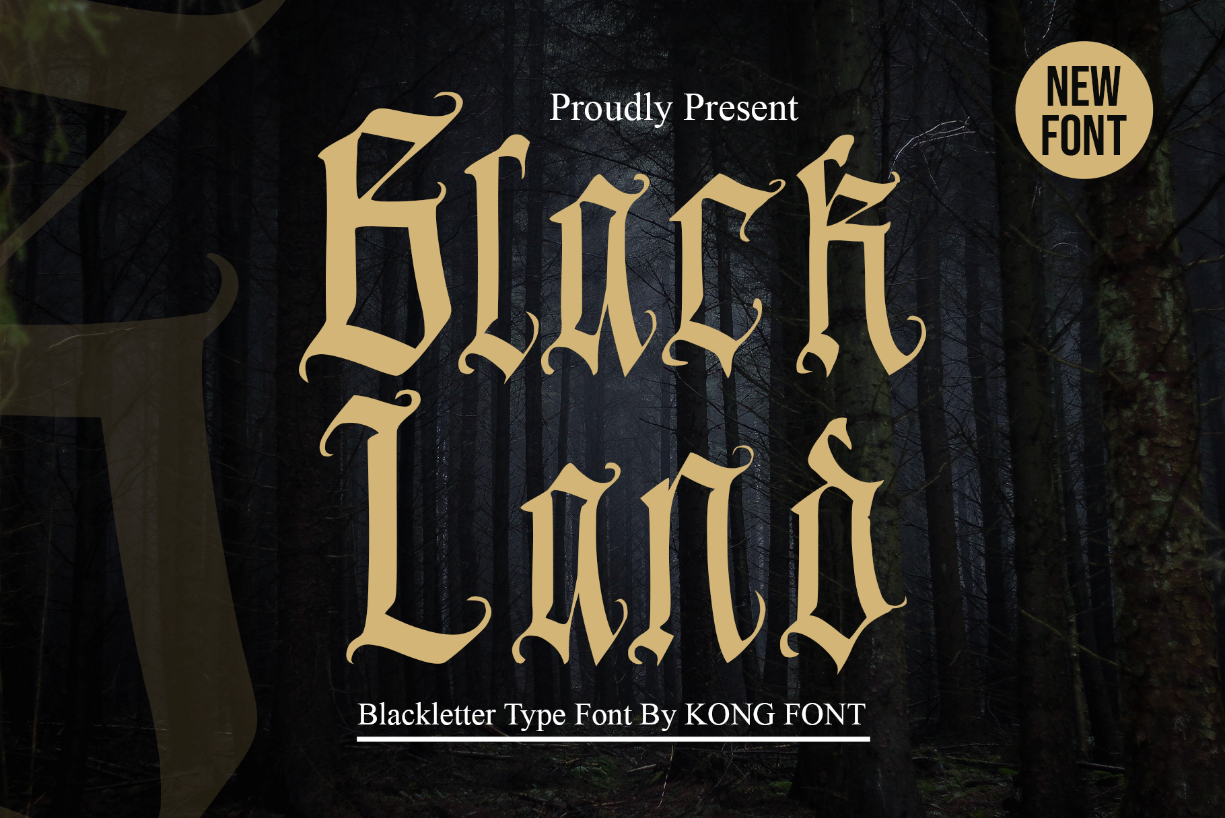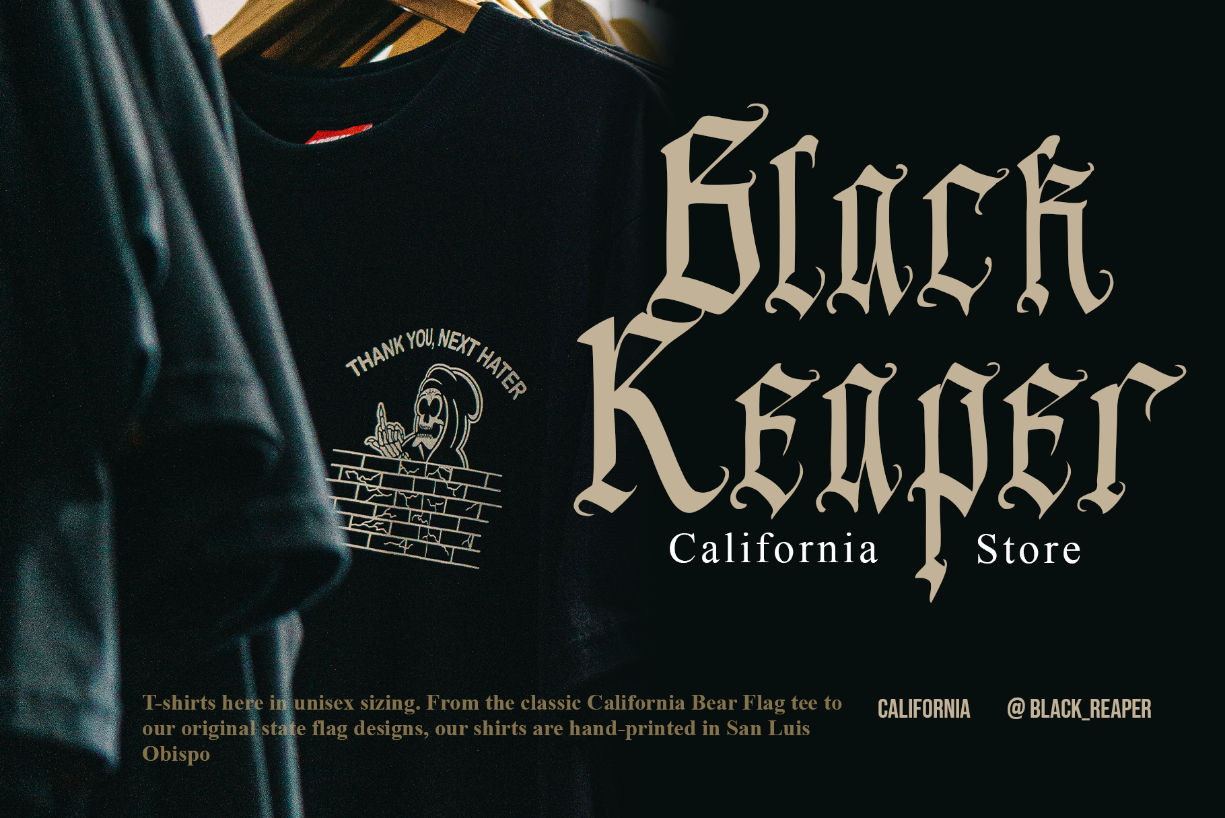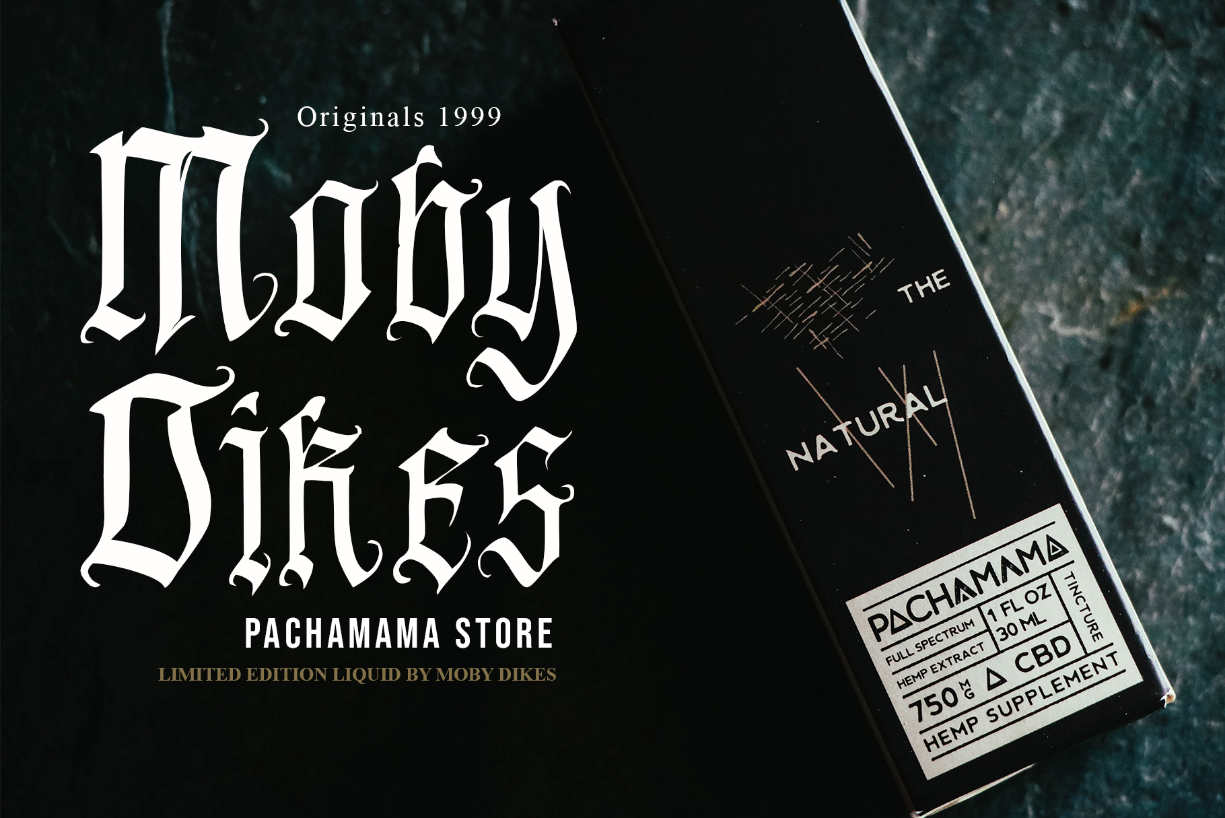
Black Land Font
About Black Land Font
Black Land is a classic and distinct blackletter font. It’s great for crafters and designers. This font is suitable for letter texts, documentation, business reports, business correspondence, magazines, newspapers, posters, advertisements, multimedia, and corporate design.
Created by Kong Font Studio